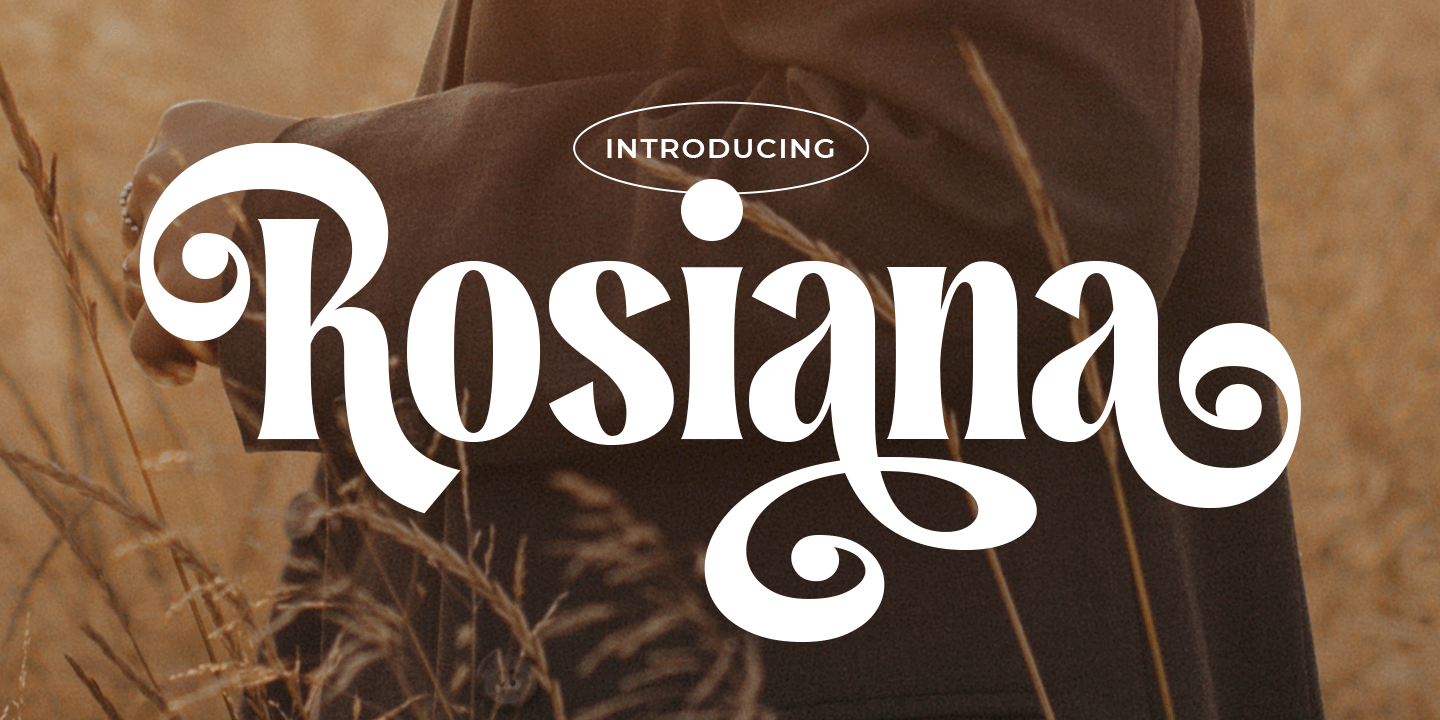
Rosiana Font is perfect for romantic wedding invitations, luxury floral boutique branding, feminine beauty product packaging, elegant bridal salon signage, high-end jewelry advertisements, sophisticated perfume labels, romantic restaurant marketing, and graceful lifestyle magazine layouts.
Rosiana Font is exciting because it captures the essence of timeless femininity with its delicately crafted letterforms that flow like silk ribbons and bloom like garden roses in springtime. The typeface embodies romance and elegance in perfect harmony, creating an immediate sense of grace and sophisticated beauty that speaks to hearts seeking refinement and emotional connection.
Rosiana Font family includes Light, Regular, Medium, Bold, and Script variants, complemented by ornate flourishes and romantic decorative elements, offering designers comprehensive tools for creating enchanting communications that celebrate love, beauty, and the feminine spirit with authentic elegance.
Whether you're designing a luxury bridal brand identity, creating romantic event materials, or developing feminine lifestyle product packaging, Rosiana Font Free Download provides unmatched grace and romantic appeal. This exquisite typeface perfectly balances delicate beauty with professional readability, ensuring your communications resonate with audiences who appreciate refined aesthetics and emotional sophistication. The font's flowing character variations and elegant details make it particularly effective for brands that celebrate love, beauty, and the special moments that define life's most precious experiences. Wedding industry professionals consistently select Rosiana Font when projects require typography that communicates romance, elegance, and the kind of timeless beauty that transforms ordinary moments into extraordinary memories, making it indispensable for bridal branding, luxury beauty marketing, and any application where graceful typography can capture the magic of love and the enduring appeal of feminine sophistication that celebrates life's most beautiful expressions of joy and connection.